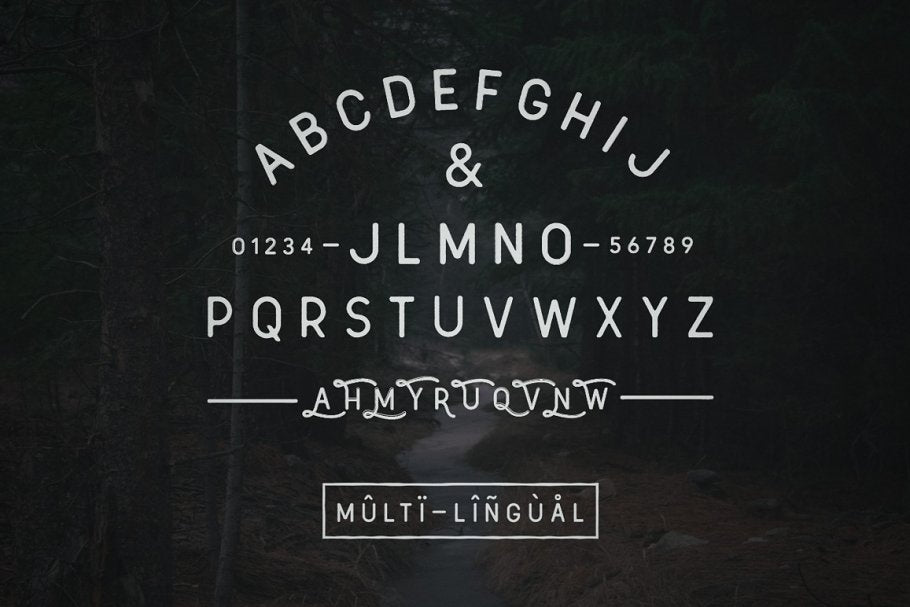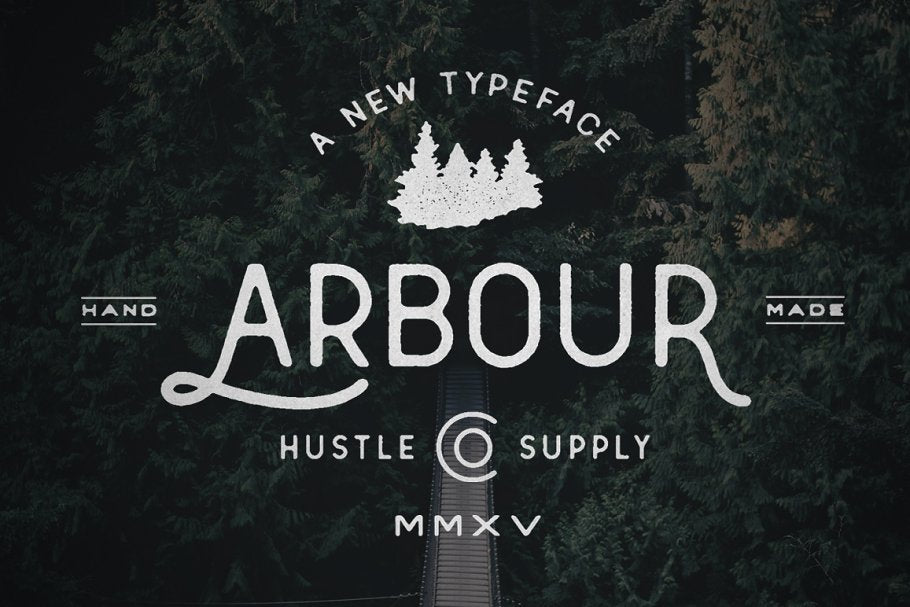
Introducing Arbour,
Arbour is a hand drawn typeface and the newest product in the HSCO family so far. Perfect for Logotypes, Apparel Design, Posters, you name it! Includes 10 Alternate Capital letters containing swashes so that you have more options. Whether you're looking for something simple to use with your lettering or looking for something that makes a statement all on it's own. Arbour is a great typeface for the job.
Get Arbour now at an introductory rate of only $10. This typeface is Multi-Lingual and contains Western European Characters. It also comes with an Oblique version so that you can pair the 2 for great combinations. Arbour is simple, clean & well crafted for your next project.